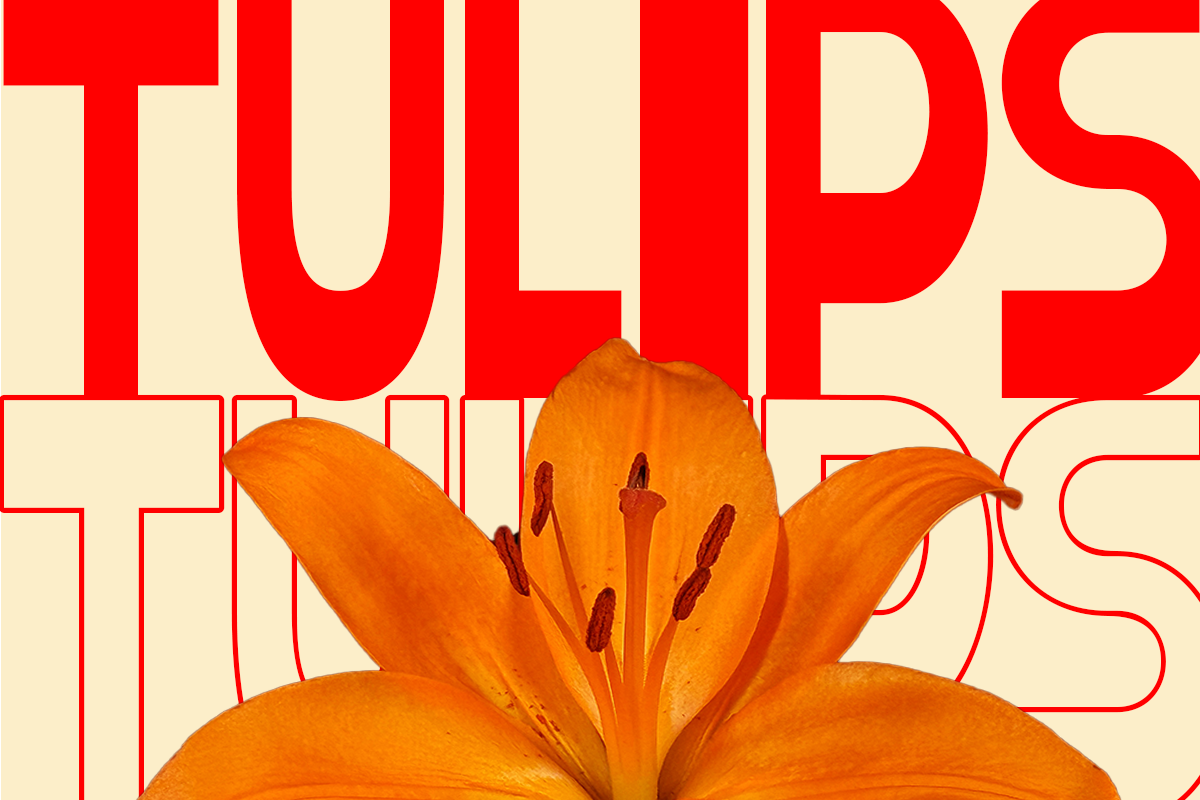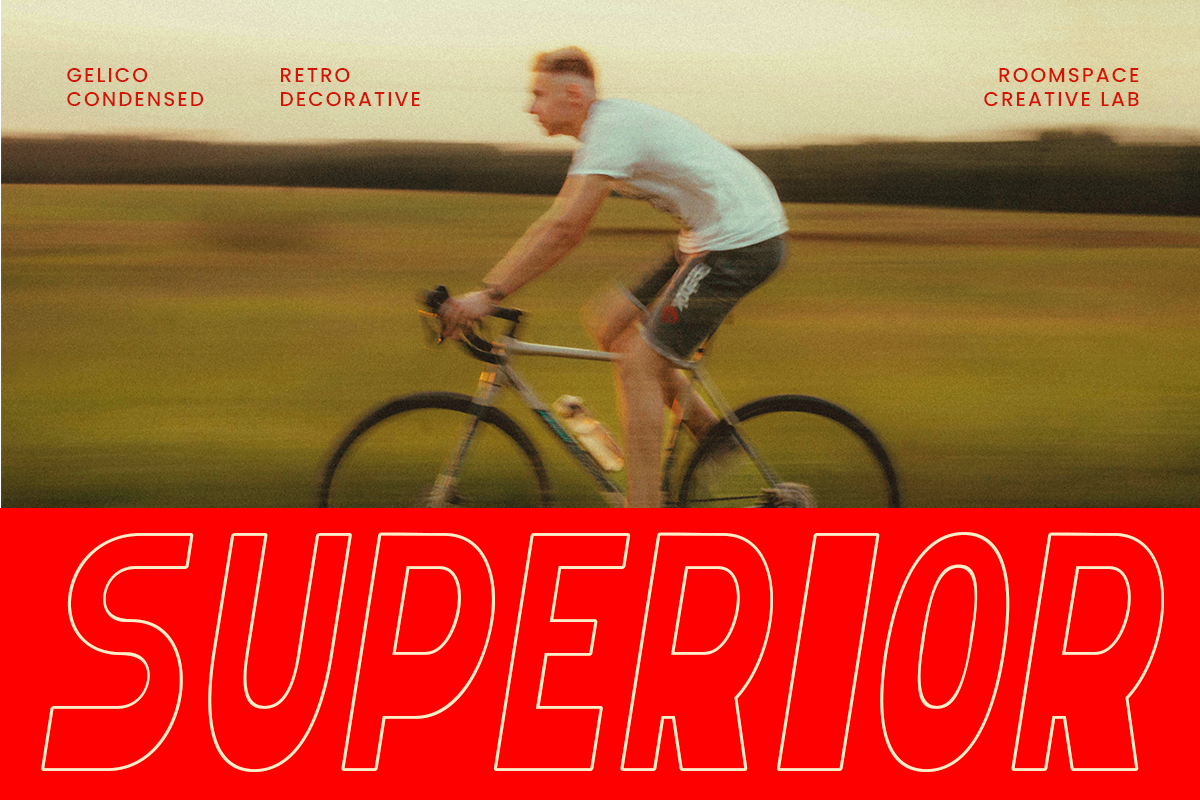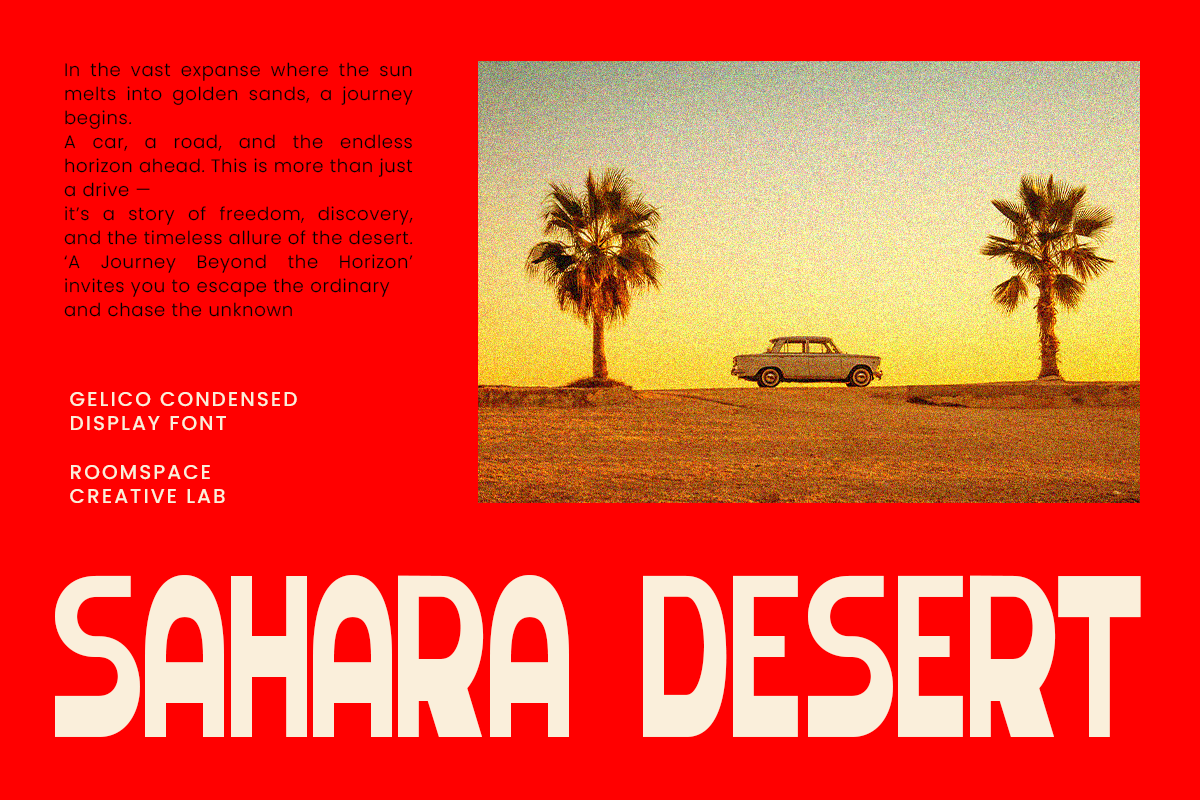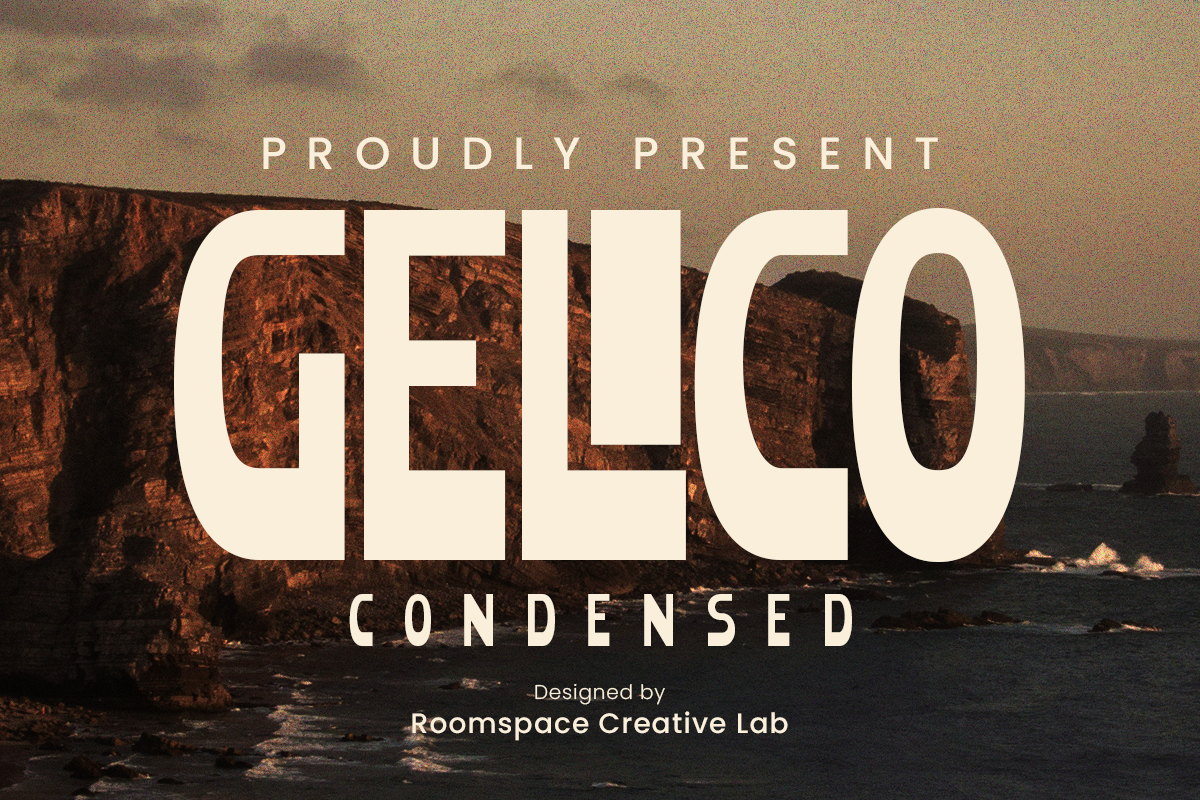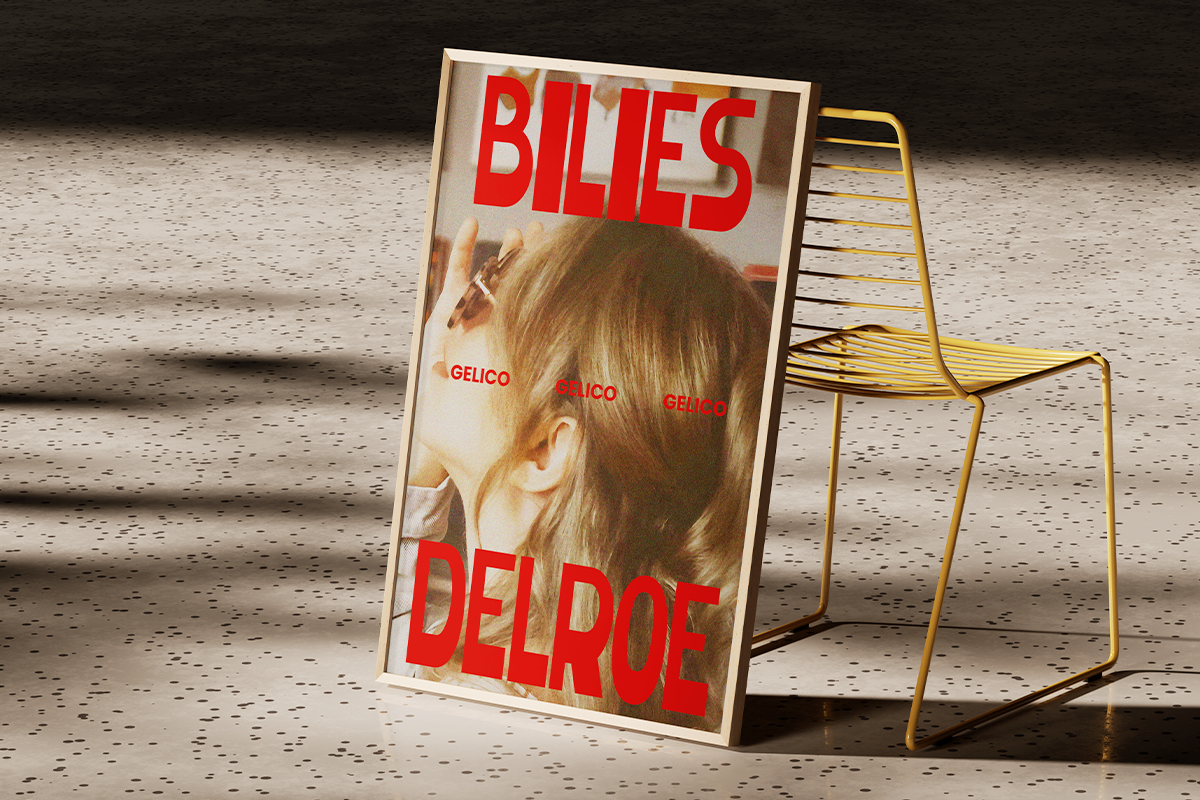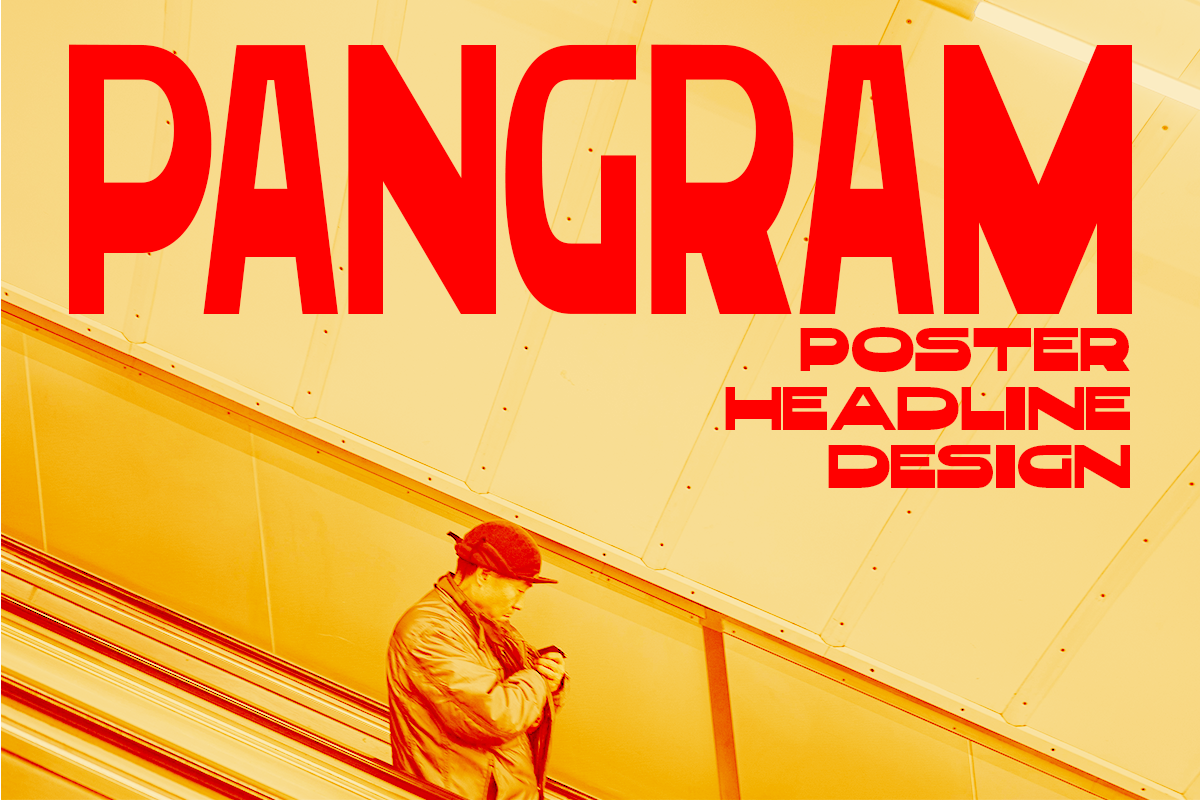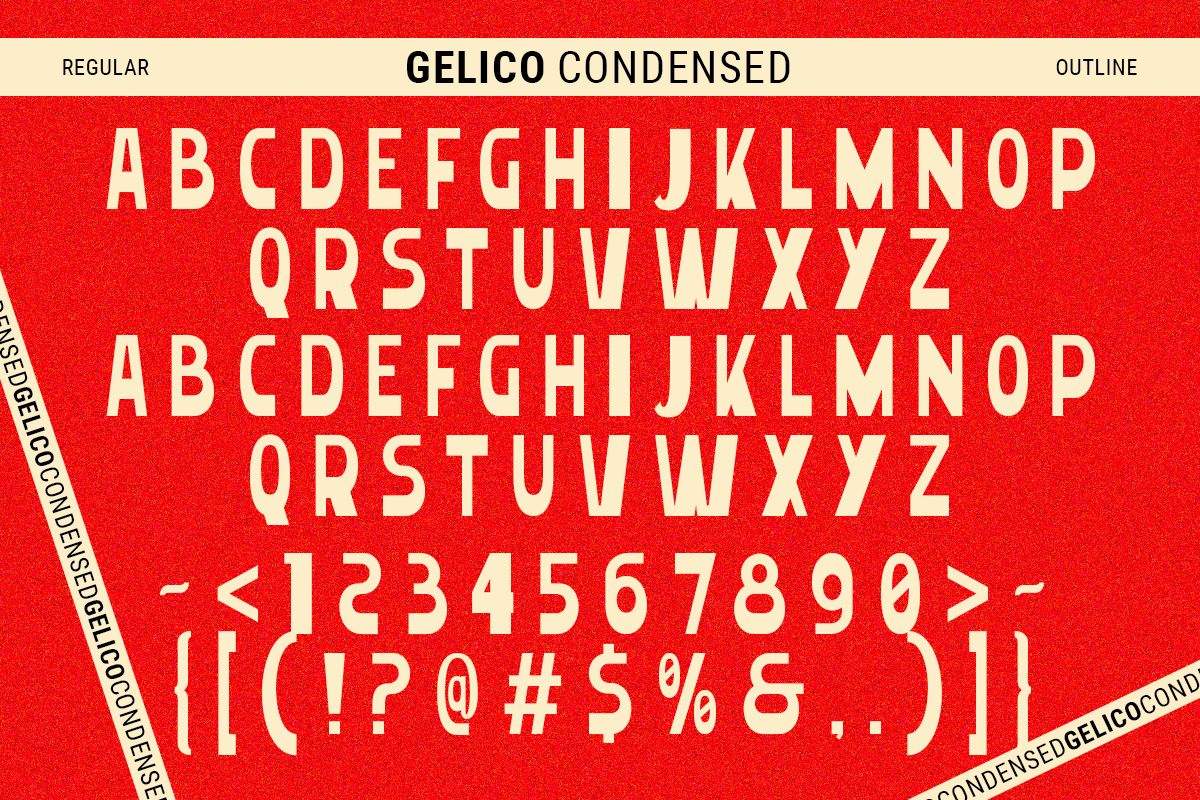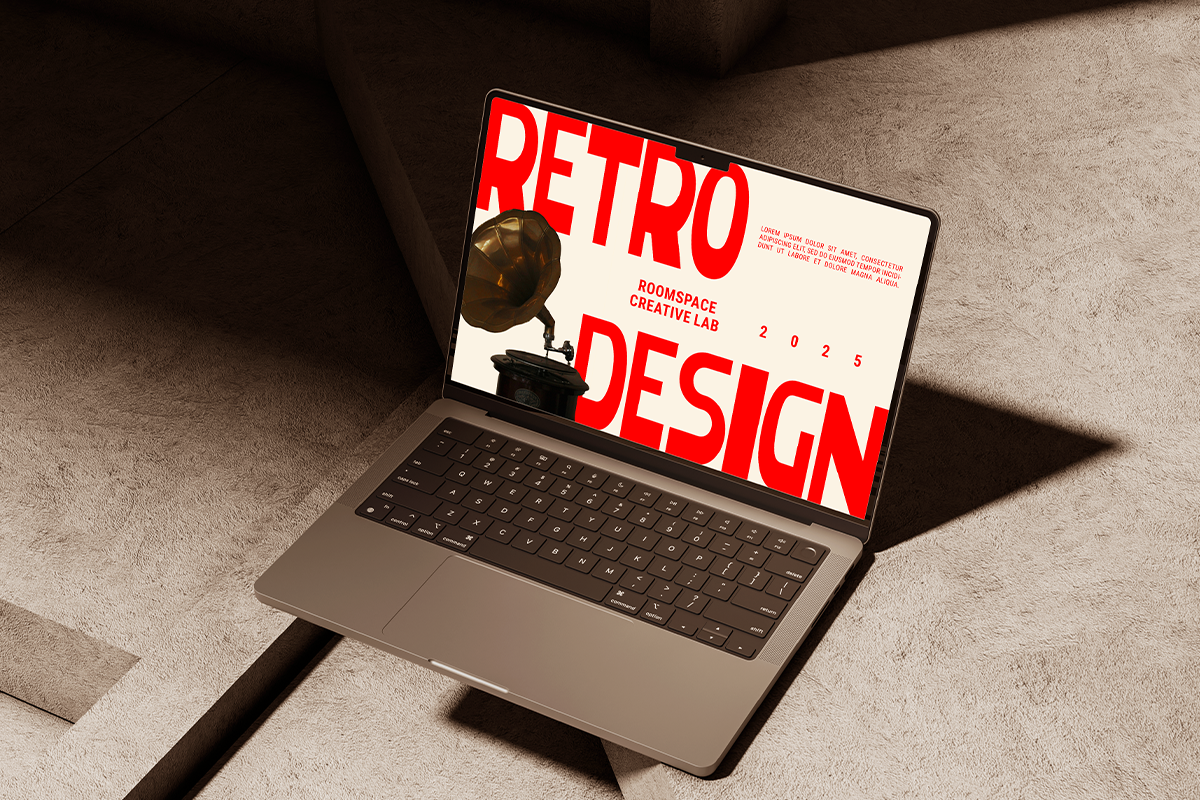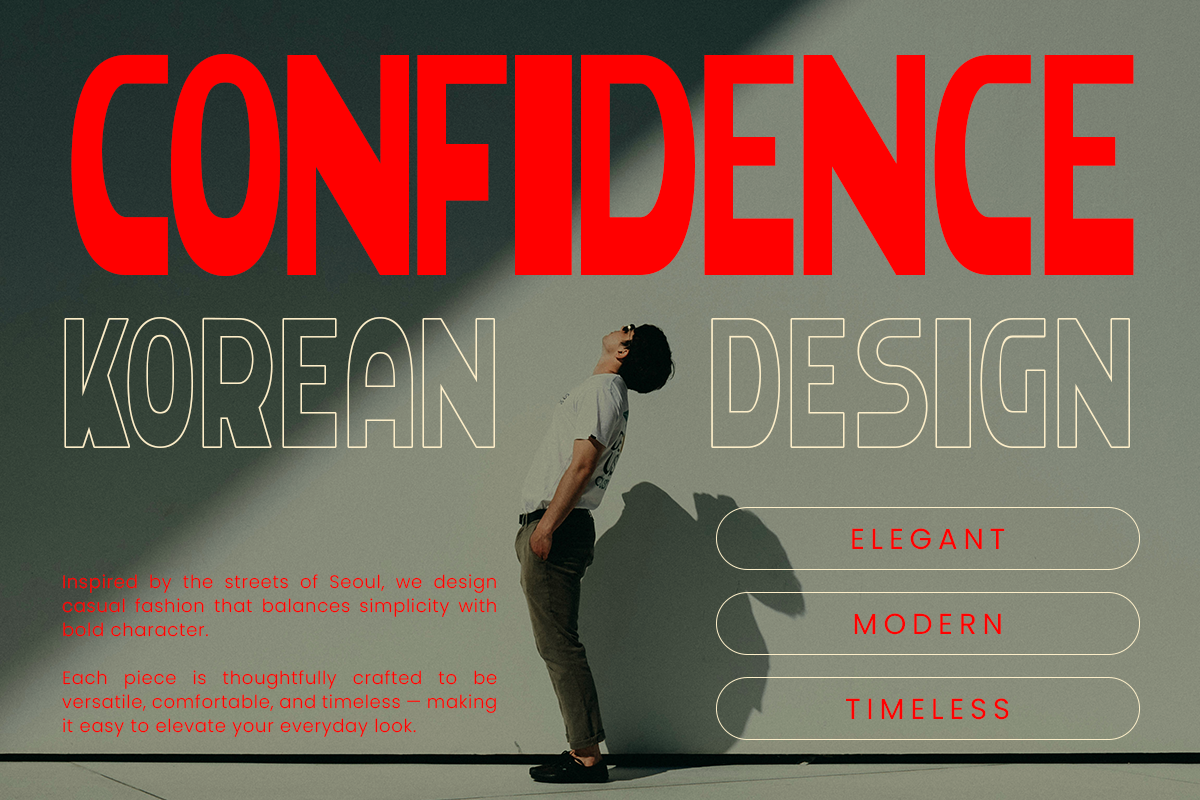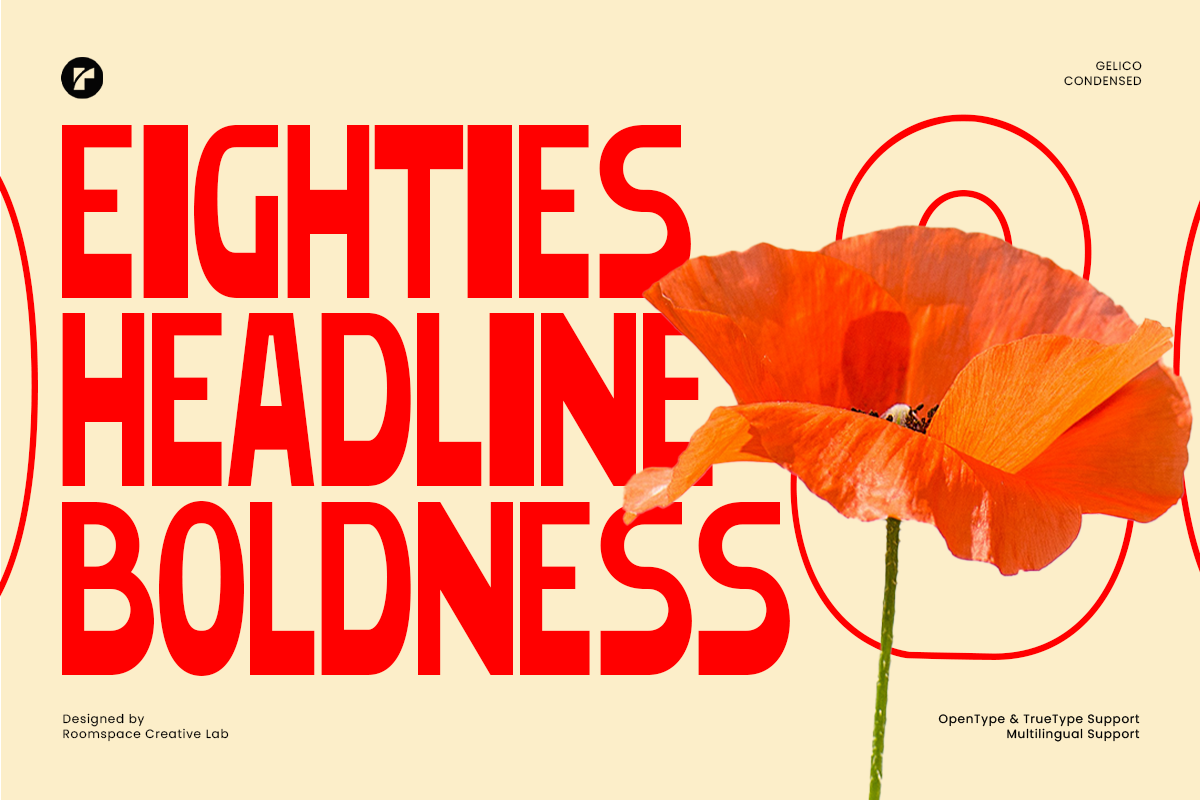
Gelico – Bold Condensed Display Font
Gelico a bold condensed display font crafted to deliver strong impact and modern appeal. With its sleek condensed form, Gelico combines boldness and simplicity, creating a typeface that instantly grabs attention while maintaining clarity and style. Perfectly designed for contemporary projects, Gelico brings a professional yet creative vibe to your typography.
Each letter in Gelico is built with sharp edges and balanced proportions, giving it a powerful presence on any layout. The condensed width makes it highly space-efficient, while still preserving excellent readability. Whether used for large headlines or structured branding, Gelico provides versatility and modern aesthetics in one package.
Ideal for logos, posters, magazine covers, social media graphics, editorial layouts, and product packaging, Gelico ensures your design stands out with bold energy. Elevate your visual identity with this condensed font and give your work the strong, modern edge it deserves. Try Gelico today and make every headline unforgettable.